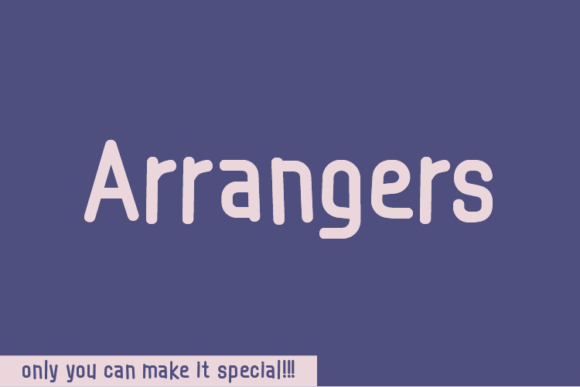
Introducing Arrangers Font: A Unique Handwritten Style for Creative Designs
In the world of typography, fonts play a crucial role in conveying messages, emotions, and personalities. For designers and crafters, finding the perfect font can make all the difference in creating stunning visual designs. If you’re on the hunt for a distinctive and eye-catching font, look no further than Arrangers Font. This natural handwritten font is a game-changer, offering a unique twist that sets it apart from other fonts.
The Unique Feature of Arrangers Font
So, what makes Arrangers Font stand out from the crowd? The answer lies in its clever design. Unlike other handwritten fonts, Arrangers Font boasts a distinctive feature: not a single node in each character’s indentation has been altered. This means that every letter, curve, and line has been carefully crafted to maintain its natural, organic feel. The result is a font that exudes warmth, personality, and character.
Arrangers Font is incredibly versatile, making it suitable for a wide range of design projects. Whether you’re working on:
- Quotes: Add a personal touch to inspirational quotes, making them perfect for social media, posters, or printables.
- Notes: Use Arrangers Font to create beautiful, handwritten-style notes for journals, planners, or greeting cards.
- T-Shirts: Design eye-catching tees with this unique font, perfect for branding, marketing, or personal projects.
- Product Design: Incorporate Arrangers Font into your product design, such as packaging, labels, or branding materials.
Why Choose Arrangers Font?
With so many fonts available, why should you choose Arrangers Font? Here are just a few compelling reasons:
- Uniqueness: Arrangers Font offers a fresh, distinctive style that will set your designs apart from the rest.
- Readability: Despite its handwritten nature, Arrangers Font remains highly legible, making it perfect for both digital and print designs.
Tips for Using Arrangers Font Effectively
To get the most out of Arrangers Font, consider the following tips:
- Pair with contrasting fonts: Combine Arrangers Font with a clean, sans-serif font to create visual interest and hierarchy.
- Experiment with colors: Try pairing Arrangers Font with bold, bright colors to add personality to your designs.
- Play with textures: Add a tactile feel to your designs by combining Arrangers Font with textures, patterns, or backgrounds.
Arrangers Font is a game-changing addition to any designer’s toolkit. Its unique, natural handwritten style, combined with its versatility and readability, make it perfect for a wide range of creative projects. Whether you’re a seasoned designer or a crafty DIY enthusiast, Arrangers Font is sure to inspire and elevate your designs. So why wait? Discover the power of Arrangers Font and bring a touch of personality to your next project!